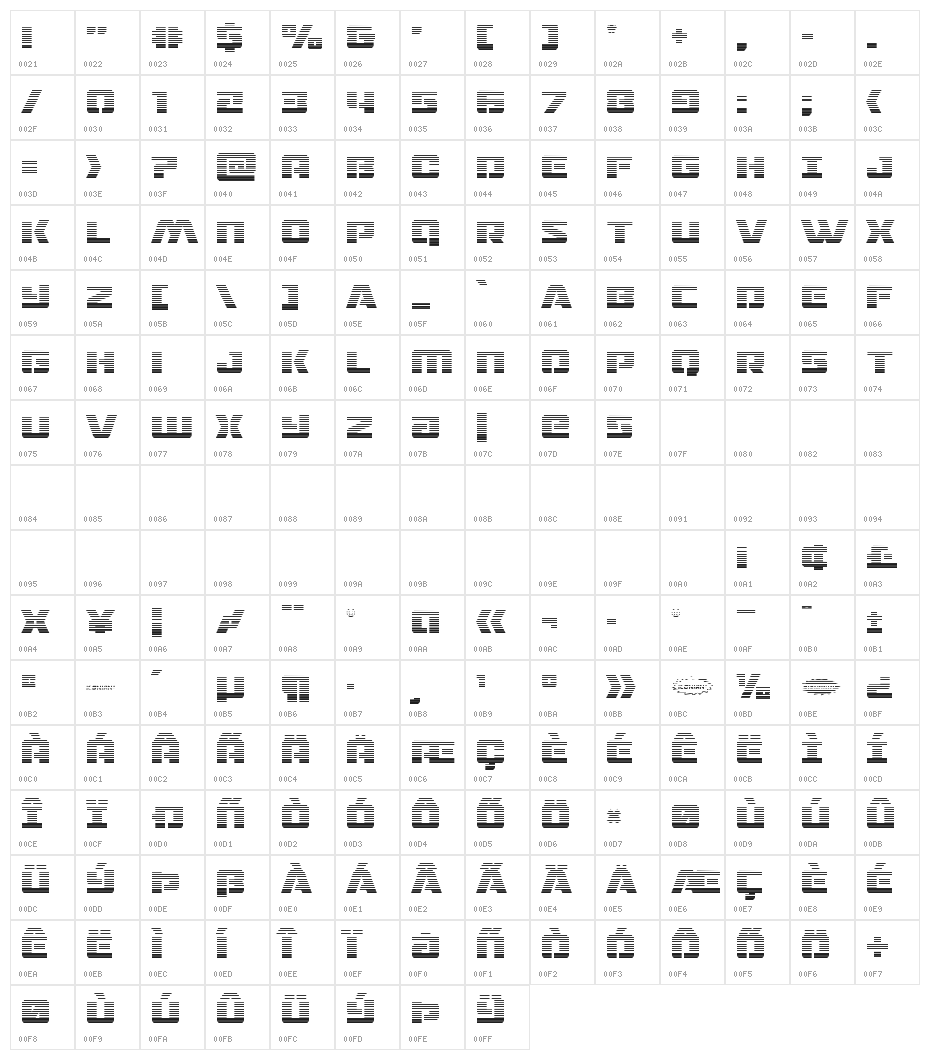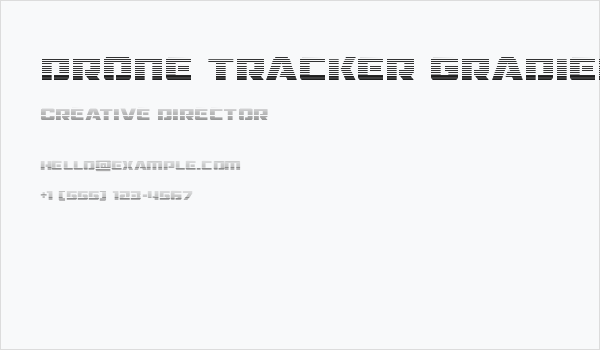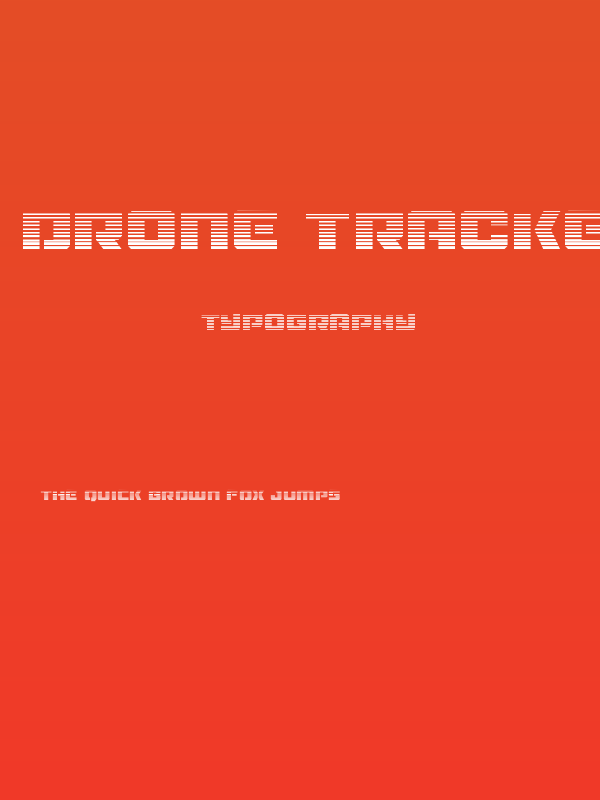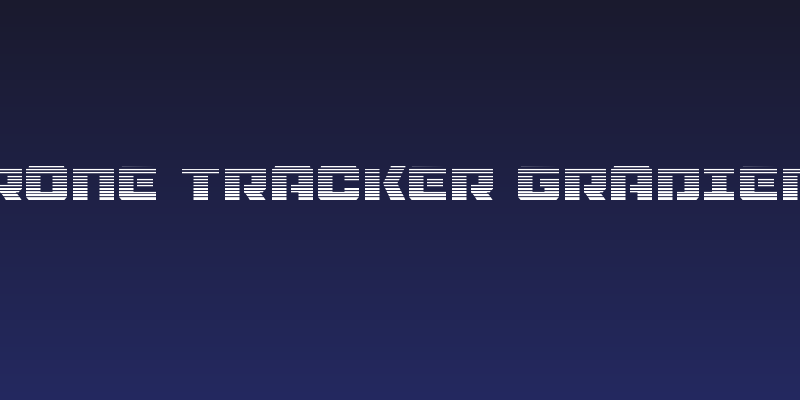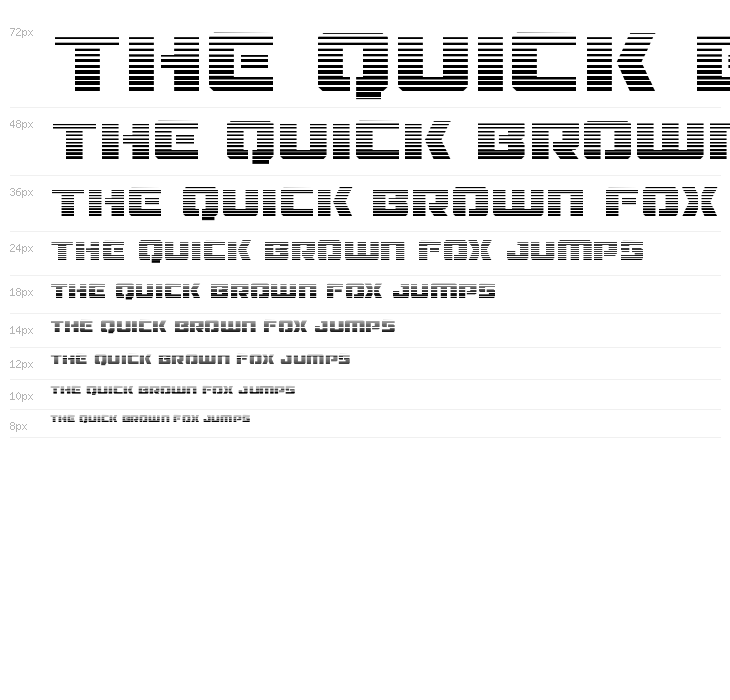
Drone Tracker Gradient Font
Drone Tracker Gradient Description
This font features a bold, futuristic design with a distinctive horizontal line pattern running through each character. The uppercase and lowercase letters, as well as numbers and special characters, all share this unique striped appearance, giving the font a dynamic and modern feel. The characters are wide and have a strong presence, making them ideal for attention-grabbing designs. The consistent line thickness across all characters provides a uniform look, while the spacing between the lines adds a sense of movement and energy.
| Proposed Projects | Ideal for tech-related branding, futuristic posters, video game titles, and sci-fi themed projects. |